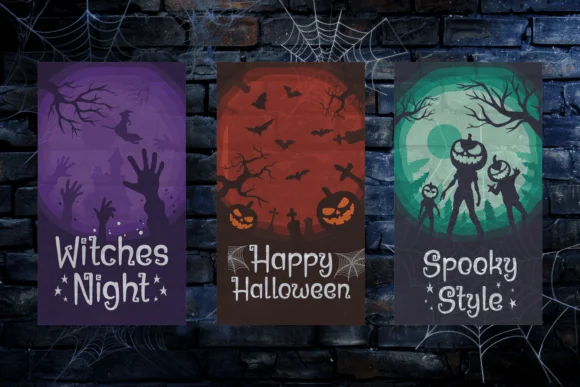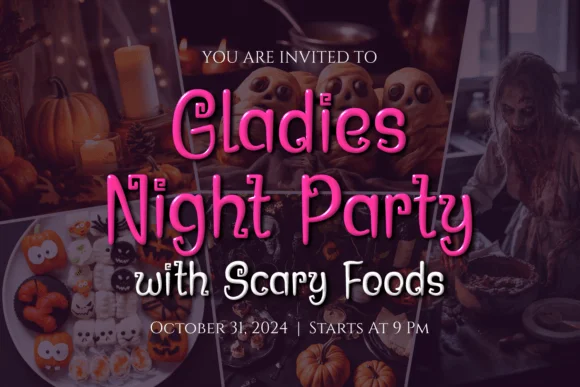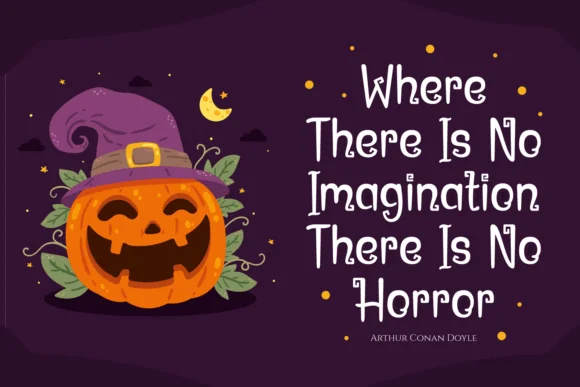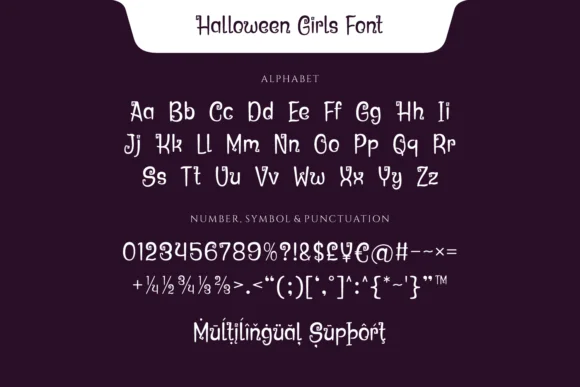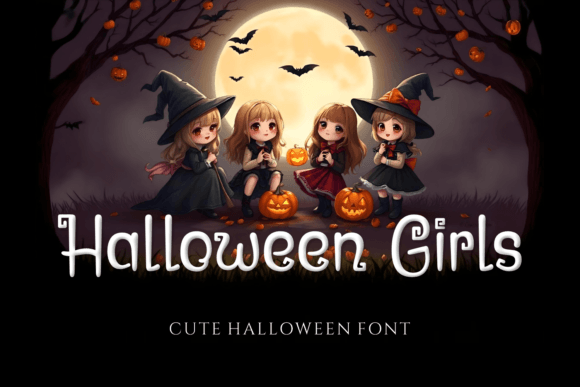
Halloween Girls Font
This feminine font is perfect for girls' Halloween parties, witch-themed celebrations, magical Halloween events, princess Halloween costumes, girls' Halloween sleepovers, feminine Halloween decorations, magical girl Halloween branding, enchanted Halloween invitations, girls' Halloween crafts, and charmingly feminine Halloween messaging materials.
Halloween Girls Font is exciting because it celebrates the enchanting magic and feminine power that girls bring to Halloween through its gracefully crafted letterforms that capture the perfect blend of supernatural charm and feminine elegance that makes girls' Halloween celebrations so uniquely magical and empowering. The font features delicately curved characters with feminine proportions and enchanting details that evoke the spellbinding beauty of girls embracing their inner witch, princess, or magical creature during Halloween transformations, incorporating sparkle-inspired flourishes and magical elements that create typography as captivating and empowering as young girls discovering their own supernatural strength and creative magic. Each letter showcases the confident grace and enchanting spirit that makes girls' Halloween celebrations so special, with elegant curves and magical accents that transform ordinary text into expressions of feminine Halloween power that celebrate girls' ability to be both beautiful and bewitching, sweet and supernatural at the same time.
The Halloween Girls Font family includes feminine style variations: Regular, Bold, Light, Enchanted, and Magical versions. The collection features special girls' elements including sparkle accents, magical flourishes, princess details, and enchanting ornaments. Additional components include feminine borders, magical frames, enchanted decorations, and charmingly powerful ornamental designs that enhance the font's Halloween girls appeal and create cohesive feminine Halloween themes.
Girls' party planners and feminine celebration enthusiasts will find Halloween Girls Font to be an invaluable resource for creating empowering Halloween communications that celebrate the unique magic and feminine strength that girls bring to Halloween celebrations. This enchantingly crafted font transforms ordinary Halloween messaging into expressions of feminine power that resonate with girls who want to celebrate Halloween with both magical charm and confident strength, proving that femininity and supernatural power make a perfectly magical combination.
The typeface includes comprehensive character support with feminine styling that maintains excellent readability while conveying the enchanting magic and empowering spirit of girls' Halloween celebrations. The font's graceful design ensures beautifully magical results across both girls' party applications and feminine Halloween productions.
Perfect for girls' parties, feminine Halloween events, magical celebrations, and empowering seasonal marketing, this font delivers enchantingly powerful visual impact that communicates feminine magic, confident grace, and the beautifully empowering truth that girls can be both elegantly feminine and supernaturally powerful in their Halloween celebrations.